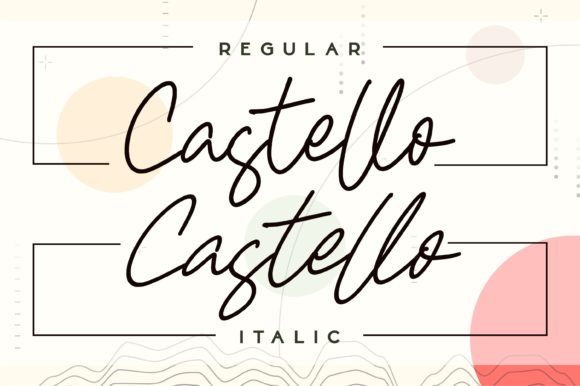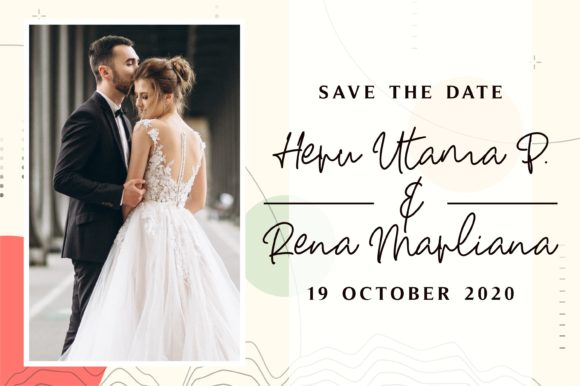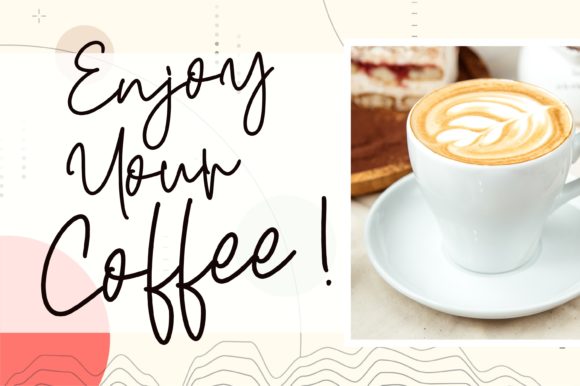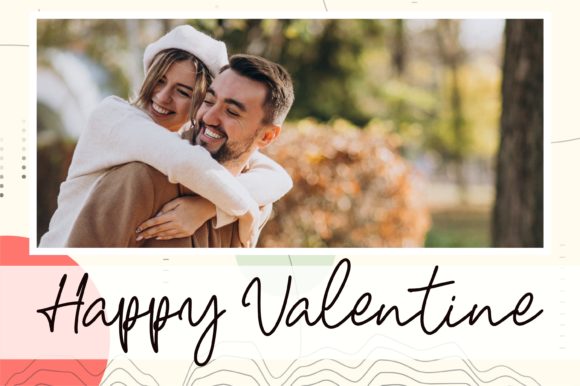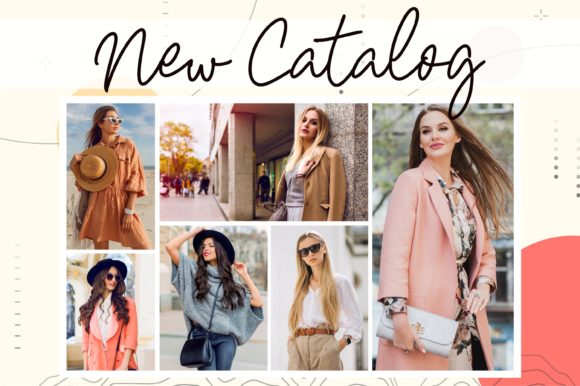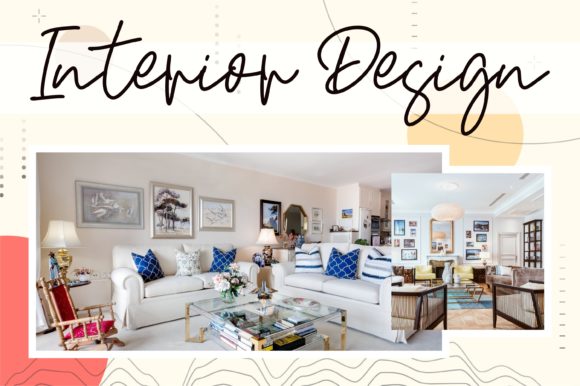
Introducing Castello Font: A Timeless Classic for Elegant Designs
Are you looking for a font that exudes elegance, sophistication, and a touch of classic charm? Look no further than Castello Font, a beautiful thin and classic handwritten font perfect for a wide range of design projects. In this article, we’ll explore the features and benefits of Castello Font, and how it can elevate your designs to the next level.
A Versatile Font for Various Design Projects
Castello Font is an incredibly versatile font that can be used for a multitude of design projects. Whether you’re working on a logo, branding project, homeware design, product packaging, or any other creative endeavor, Castello Font is an excellent choice. Its elegant and refined appearance makes it suitable for:
- Logos and branding projects
- Homeware designs, such as stationery and ceramics
- Product packaging, including mugs, quotes, and posters
- Shopping bags and t-shirts
- Book covers and name cards
- Invitation cards and greeting cards
- Labels and photography watermarks
- Special events and more
The Characteristics of Castello Font
So, what makes Castello Font so special? Here are some of its key characteristics:
- Thin and classic handwritten style: Castello Font boasts a beautiful, delicate, and classic handwritten style that adds a touch of sophistication to any design.
- Elegant and refined appearance: The font’s elegant and refined appearance makes it perfect for designs that require a high level of sophistication.
- Highly legible: Despite its delicate nature, Castello Font is highly legible, making it suitable for use in a variety of contexts.
Why Choose Castello Font?
With so many fonts available, why should you choose Castello Font for your design projects? Here are just a few compelling reasons:
- Unique and distinctive: Castello Font has a unique and distinctive appearance that will set your designs apart from the crowd.
- Timeless appeal: The font’s classic style ensures that it will remain timeless and relevant for years to come.
- Easy to use: Castello Font is easy to use and can be incorporated into a wide range of design projects.
Tips for Using Castello Font
To get the most out of Castello Font, here are a few tips to keep in mind:
- Use it sparingly: Due to its delicate nature, it’s best to use Castello Font sparingly to avoid overwhelming the design.
- Pair it with complementary fonts: Castello Font pairs well with a range of other fonts, so don’t be afraid to experiment and find the perfect combination for your design.
- Experiment with different colors and textures: Castello Font looks stunning in a variety of colors and textures, so don’t be afraid to get creative and try out different options.
In conclusion, Castello Font is a beautiful and versatile font that is perfect for a wide range of design projects. Its elegant and refined appearance, combined with its highly legible and timeless appeal, make it an excellent choice for designers and crafters. Whether you’re working on a logo, branding project, or any other creative endeavor, Castello Font is sure to add a touch of sophistication and elegance to your design.
Get Creative with Castello Font